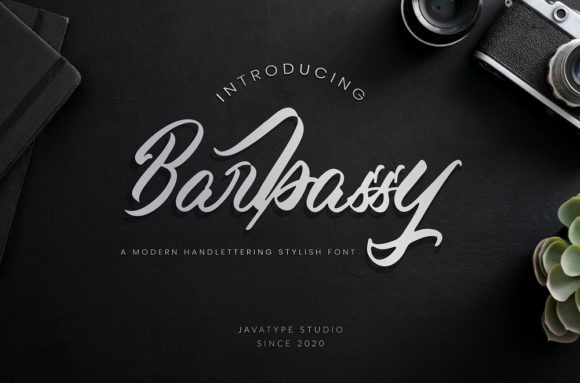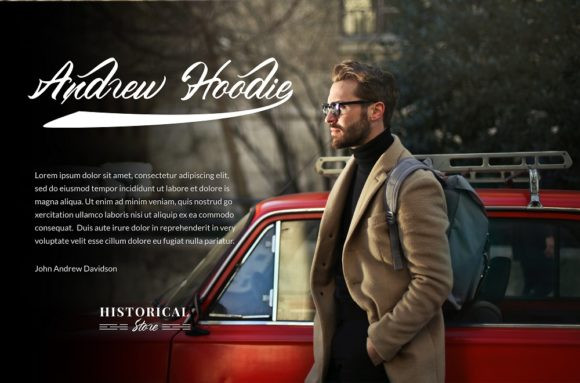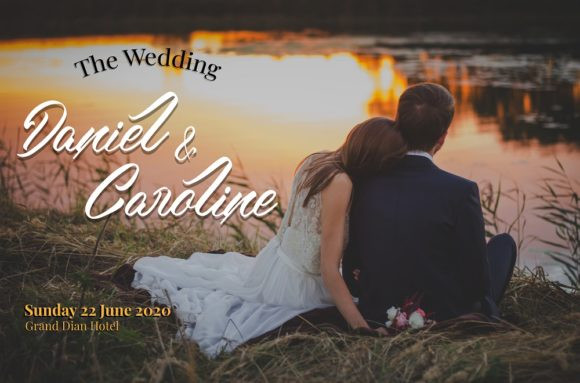
Barbassy Font
Barbassy is an incredibly distinct, delicate and timeless handwritten font. It looks stunning on wedding invitations, thank you cards, quotes, greeting cards, logos, business cards and every other design which needs a handwritten touch.